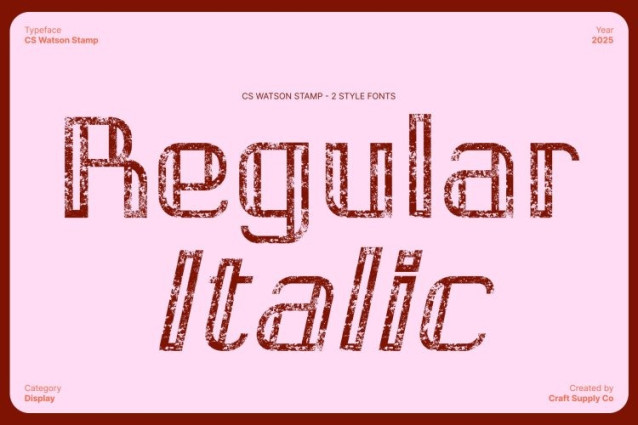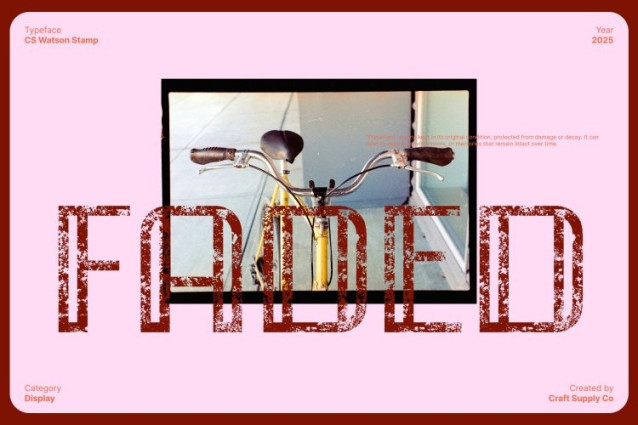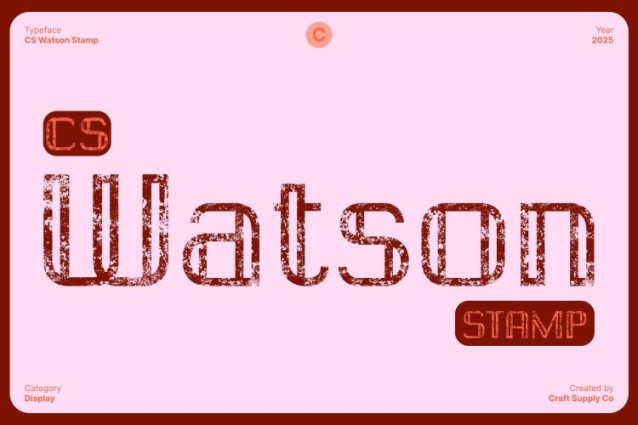
CS Watson Stamp Font
CS Watson Stamp Font This is a refined display typeface inspired by the geometric elegance and ornamental charm of Art Deco design. Crafted with precision, it features bold structure, decorative lines, and striking letterforms that embody the iconic aesthetics.
Striking Character Shapes with Classic Deco Details
Every character in this font is thoughtfully shaped with symmetrical curves, straight edges, and decorative elements that reflect Art Deco’s architectural beauty. Its strong verticality, stylized forms, and luxurious proportions create a bold presence that enhances the visual impact of your designs.
Vintage Stamped Texture for Depth and Authentic Character
Enhancing its luxurious Deco silhouette is a unique stamp texture that adds tactile depth and a vintage appeal. The subtle distressing softens the clean geometric lines, giving the font a weathered, handcrafted character reminiscent of classic signage and early print techniques.
Perfect for Luxury Branding, Editorials, and Decorative Designs
This font delivers impressive versatility for designers working on decoration-themed graphics, luxury branding, editorial layouts, premium packaging, posters, and event materials. Its Art Deco elegance combined with a vintage texture makes it suitable for both modern glamour and retro-inspired projects.